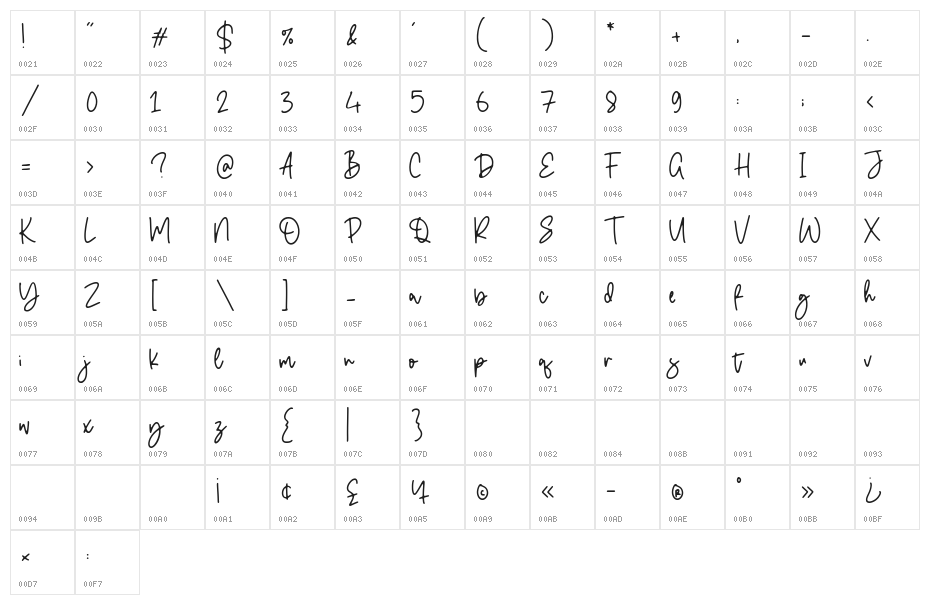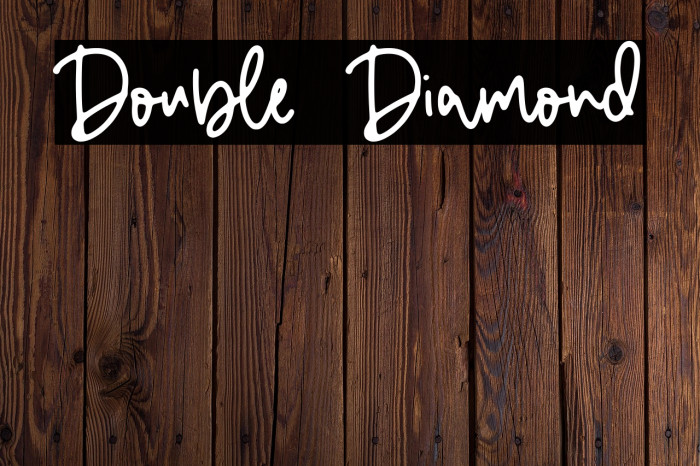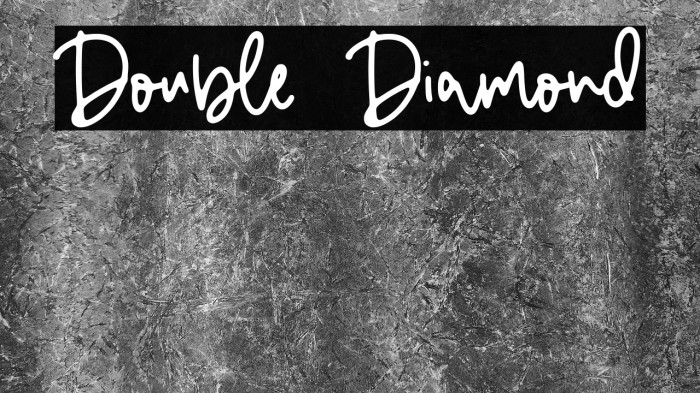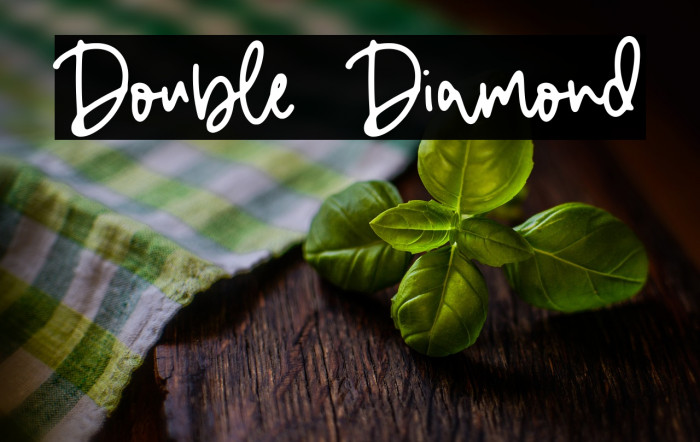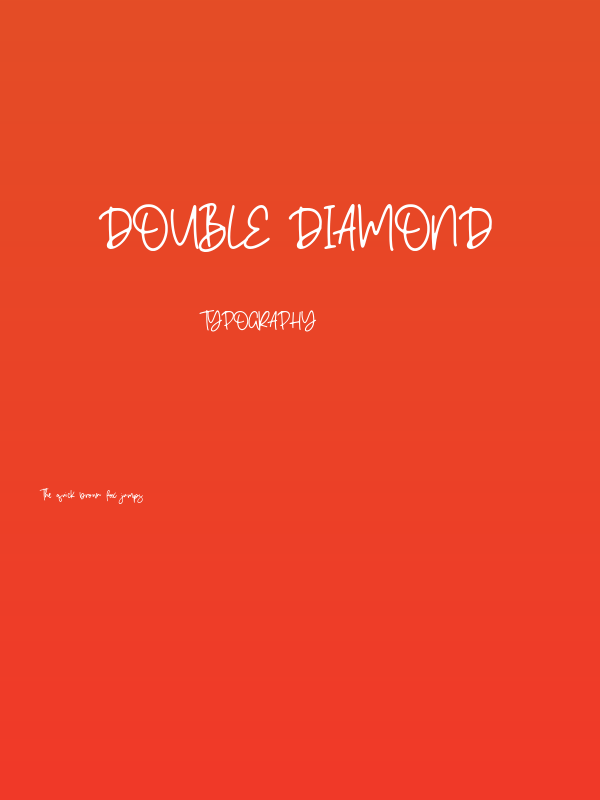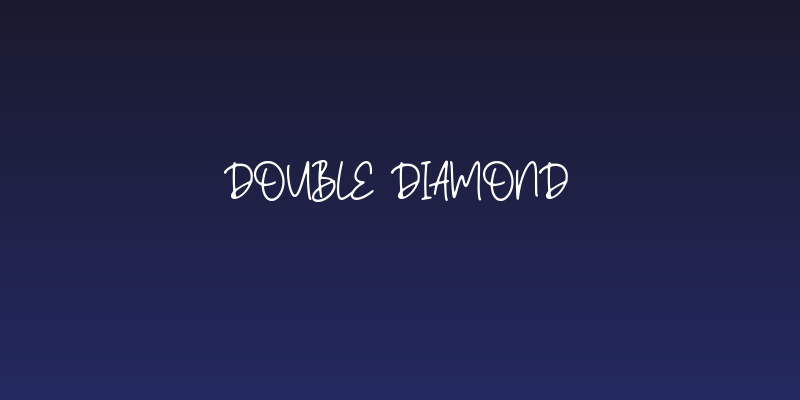
Double Diamond Font
Double Diamond Description
This font features a playful and casual handwritten style with a smooth, flowing appearance. The uppercase letters are bold and slightly irregular, giving a dynamic and lively feel. The lowercase letters maintain a consistent flow with a touch of elegance, making them highly legible. Numbers and special characters are crafted with the same playful spirit, ensuring a cohesive look across all text elements. The strokes are moderately thick, providing a balanced contrast that enhances readability without sacrificing style.
| Overall Style | Casual |
| Use Case | Logos, Headlines, Invitations |
| Proposed Projects | Ideal for greeting cards, invitations, personal branding, and social media graphics. |